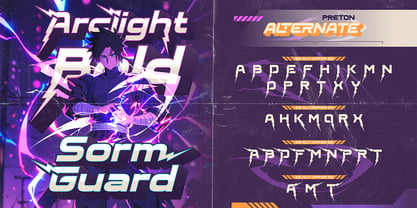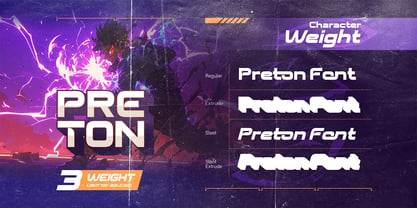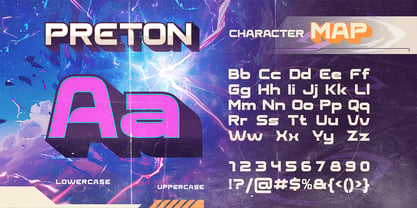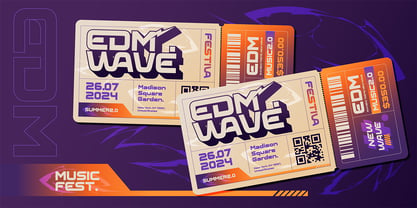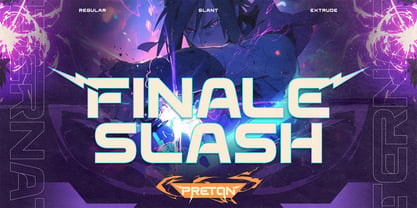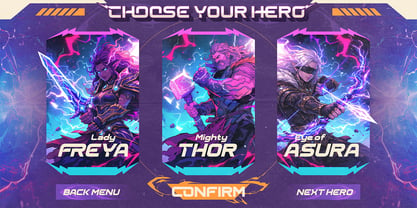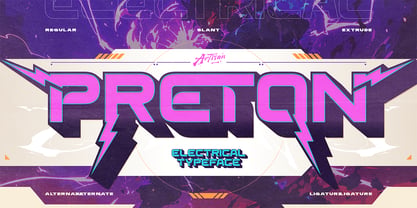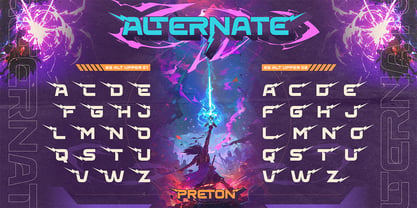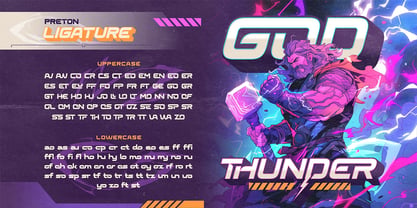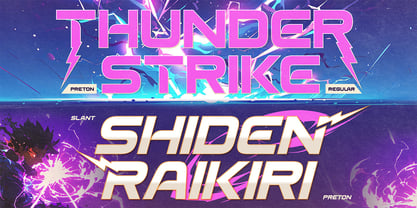
Preton
by Artisan Themes
The Preton Font Family was designed by Meidy Meichico and published by Artisan Themes. Preton contains 4 styles and family package options. More about this family
Preton is a bold electrical display font built to bring high energy into your designs. With its sharp lightning-inspired cuts and futuristic structure, this typeface delivers a powerful and dynamic look that instantly grabs attention. Designed for creators who want something loud and impactful, PRETON comes in multiple styles including Regular, Slant, and Extrude, giving you the flexibility to create layered, dimensional typography with ease. Perfect for gaming titles, esports branding, posters, music events, tech visuals, and any project that needs a strong futuristic punch.
Designers: Meidy Meichico
Foundry: Artisan Themes